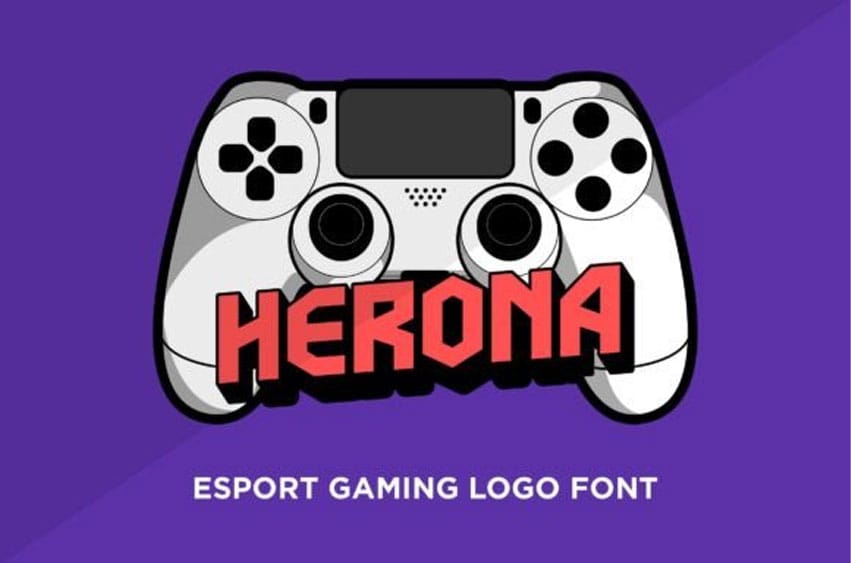
Herona Font is specifically crafted based on the trending esports and gaming logo concept.
Your most effortless way to go for your gaming branding, esports logo, streaming overlay design, gaming logo, etc.